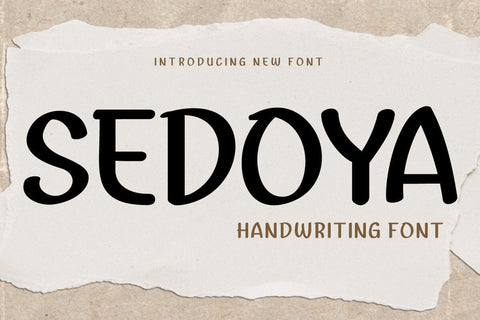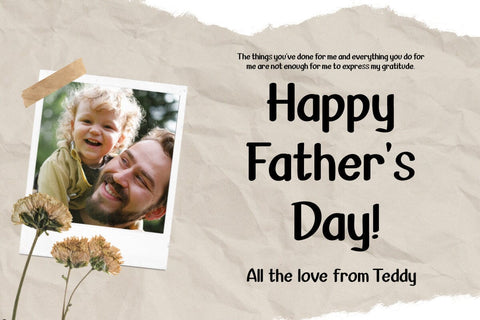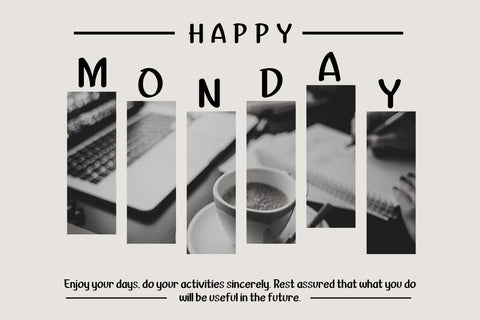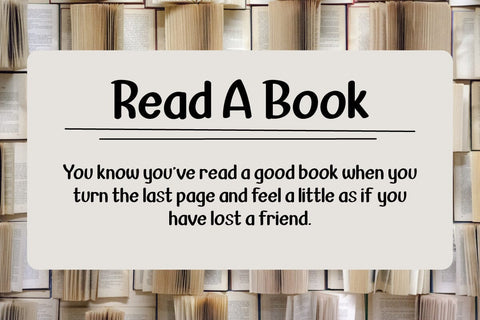
Sedoya Font
Introducing “SEDOYA Font” – Where Handwriting Meets Elegance.
SEDOYA Font is the epitome of graceful handwriting. With its exquisite handwriting theme, this font adds a touch of sophistication to your creative projects, making it the ideal choice for those seeking refined and elegant script. Whether you’re designing invitations, branding materials, or anything in between, SEDOYA Font effortlessly captures attention and infuses your designs with timeless charm.
Crafted with meticulous detail, SEDOYA Font exudes the elegance and allure of handwritten script, forging an immediate connection with your audience. Its versatility knows no bounds, making it suitable for a wide array of applications, from wedding invitations to luxury branding.
SEDOYA Font elevates both legibility and style with its flowing strokes and refined lines, lending a natural and enchanting appearance to your text. It also offers multilingual support, ensuring it resonates with a global audience.